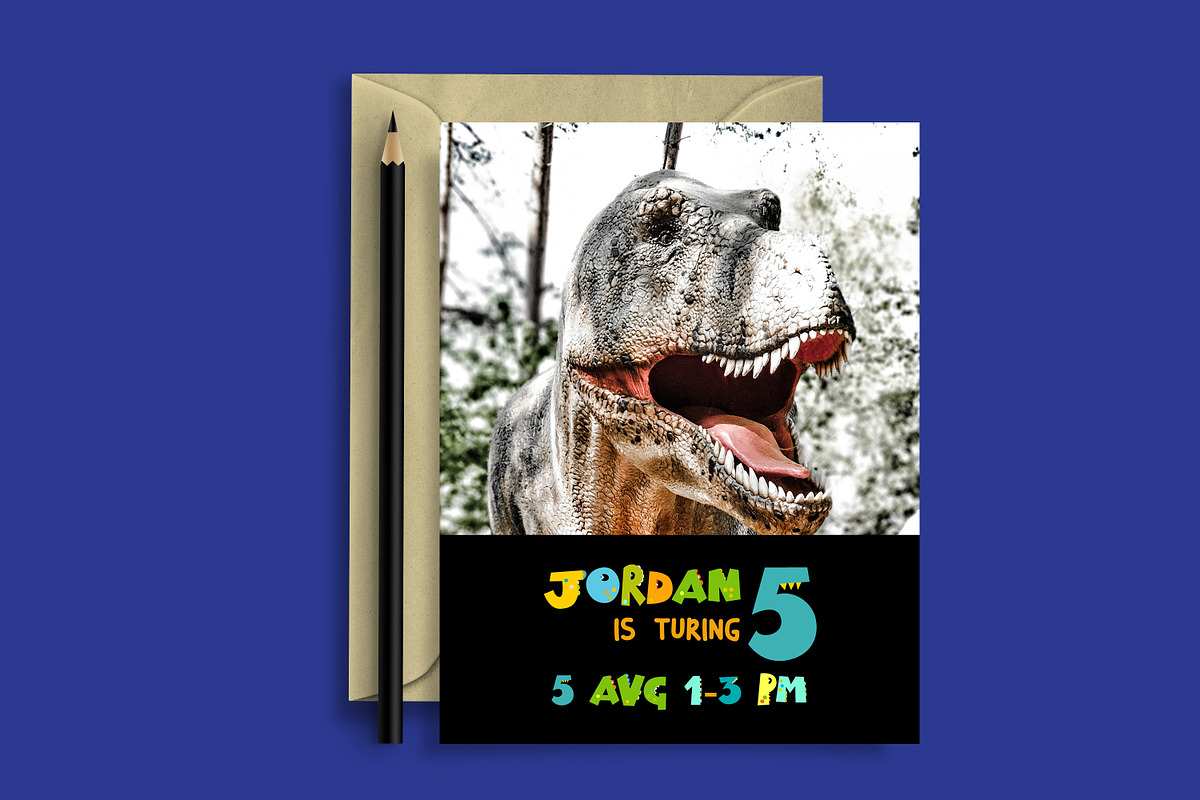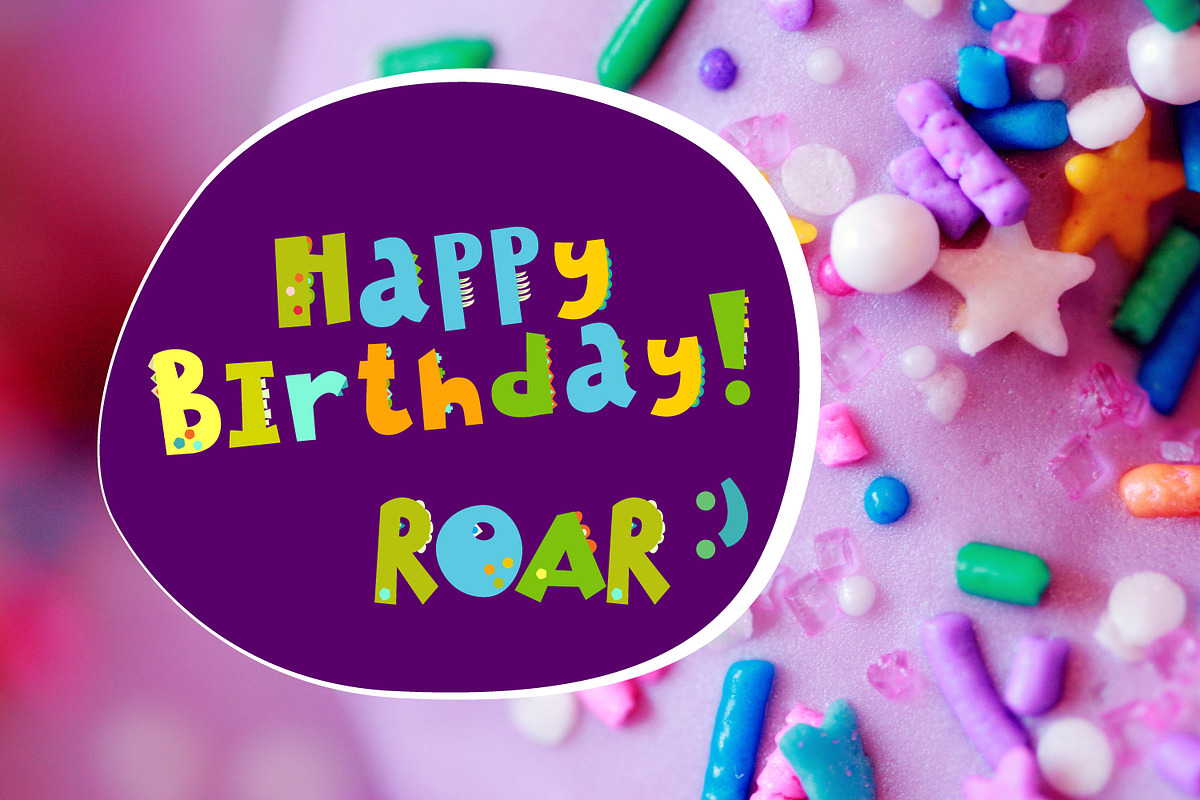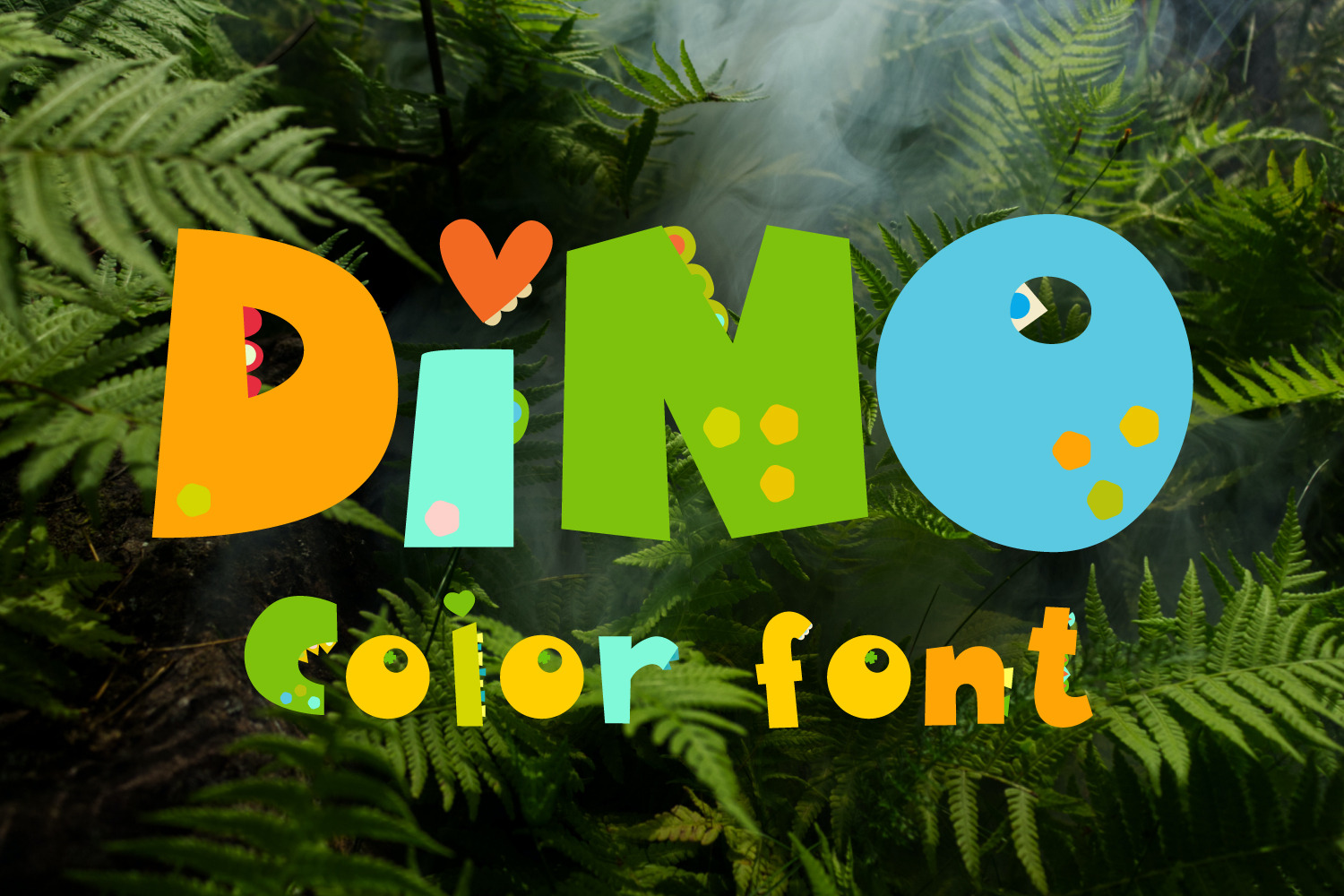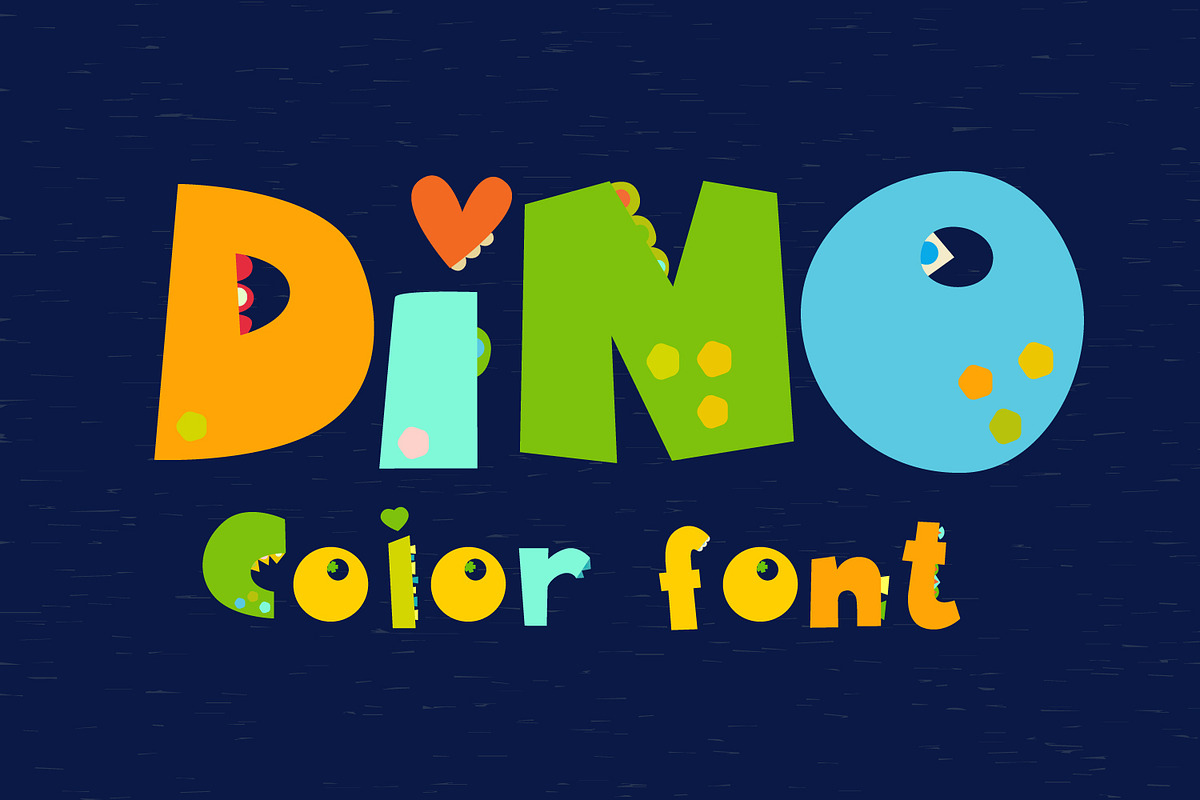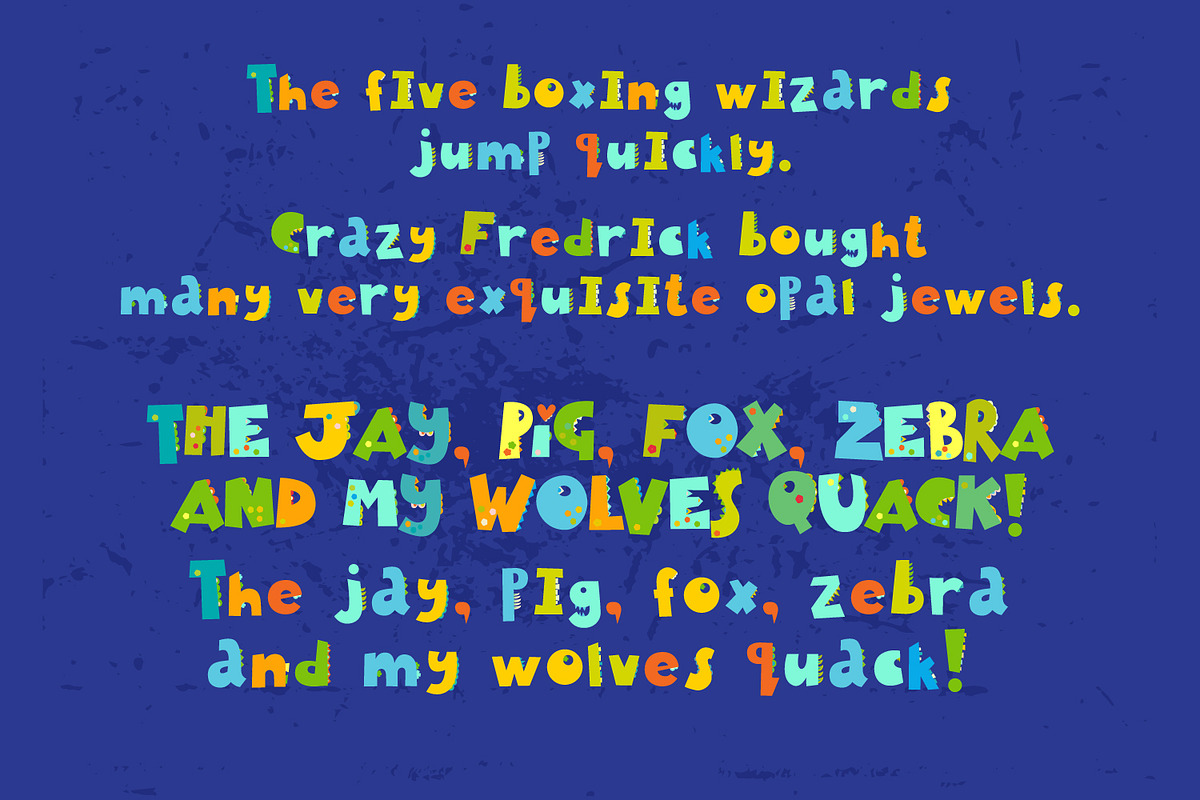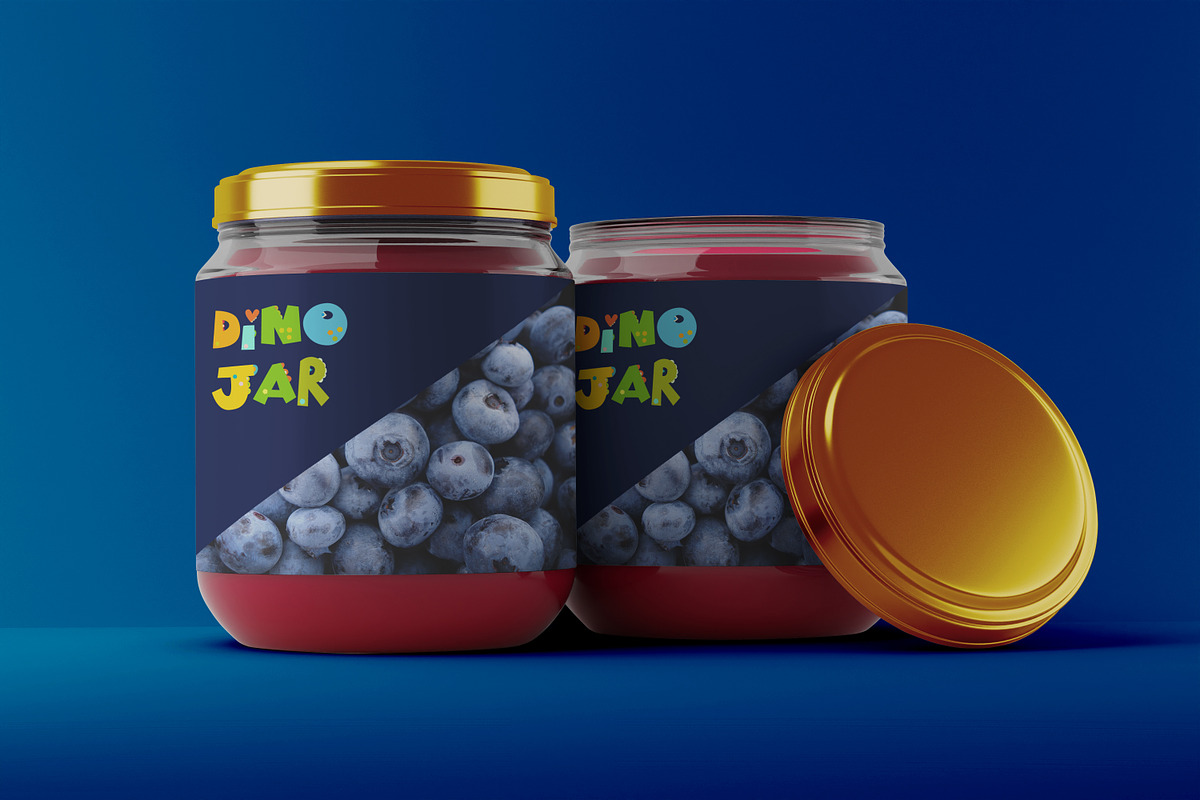
Dinosaurs Color Font OpenType-SVG
Dino childish Font OpenType-SVG. Color dinosaurs alphabet. Color Display typeface. Perfect for prints of children's textiles, books, greeting cards, wallpaper, paper for scrapbooking, packaging, toys, posters, baby clothes, picture books, children holidays in the style of monsters, dragons, dinosaurs, Dino party. This Font is hand drawn with love.
Colored fonts are contemporary technology.